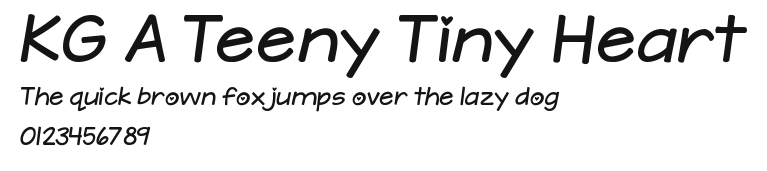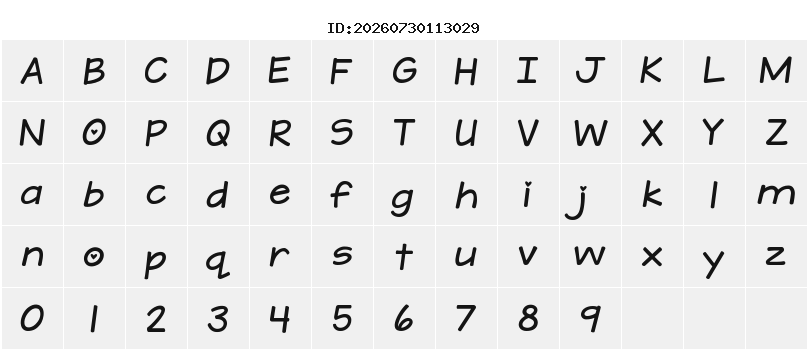
• Font Name: KG A Teeny Tiny Heart
• Designer: Kimberly Geswein
KG A Teeny Tiny Heart.ttf is a modern, elegant sans-serif font designed for ultimate readability and visual harmony. Perfect for branding, headlines, web design, and print materials.